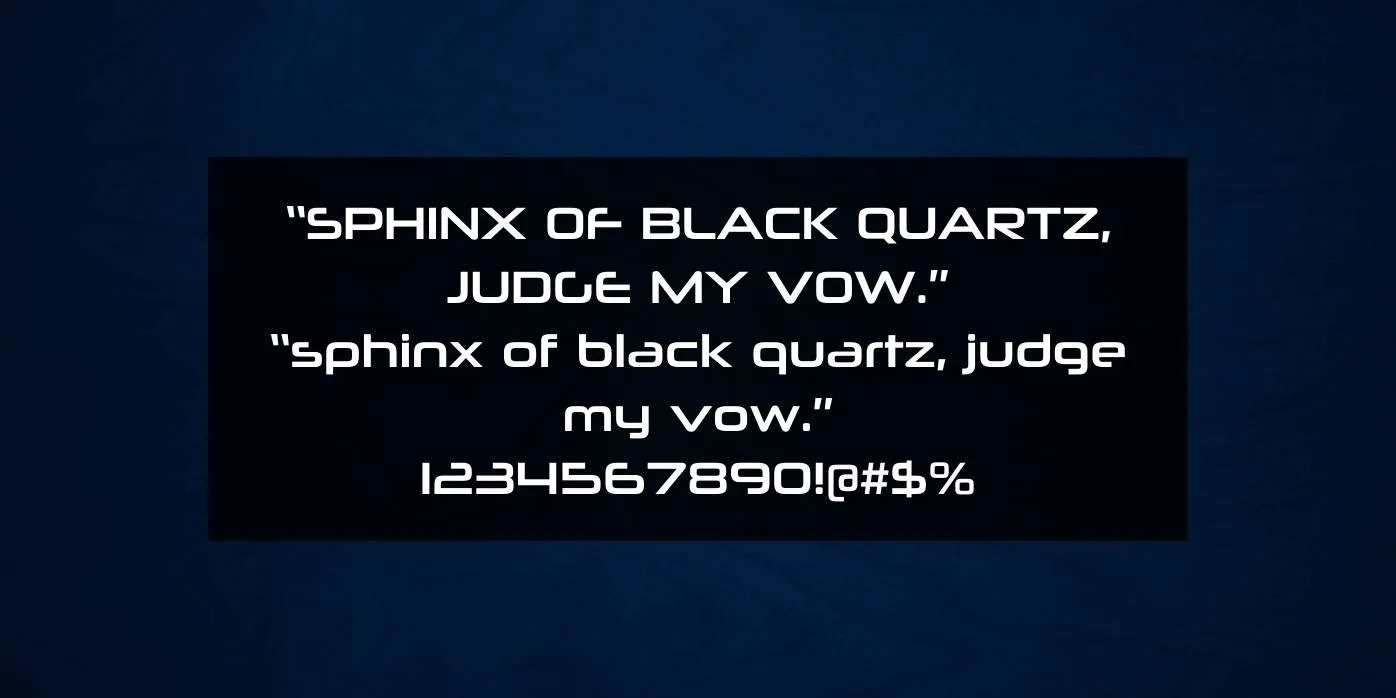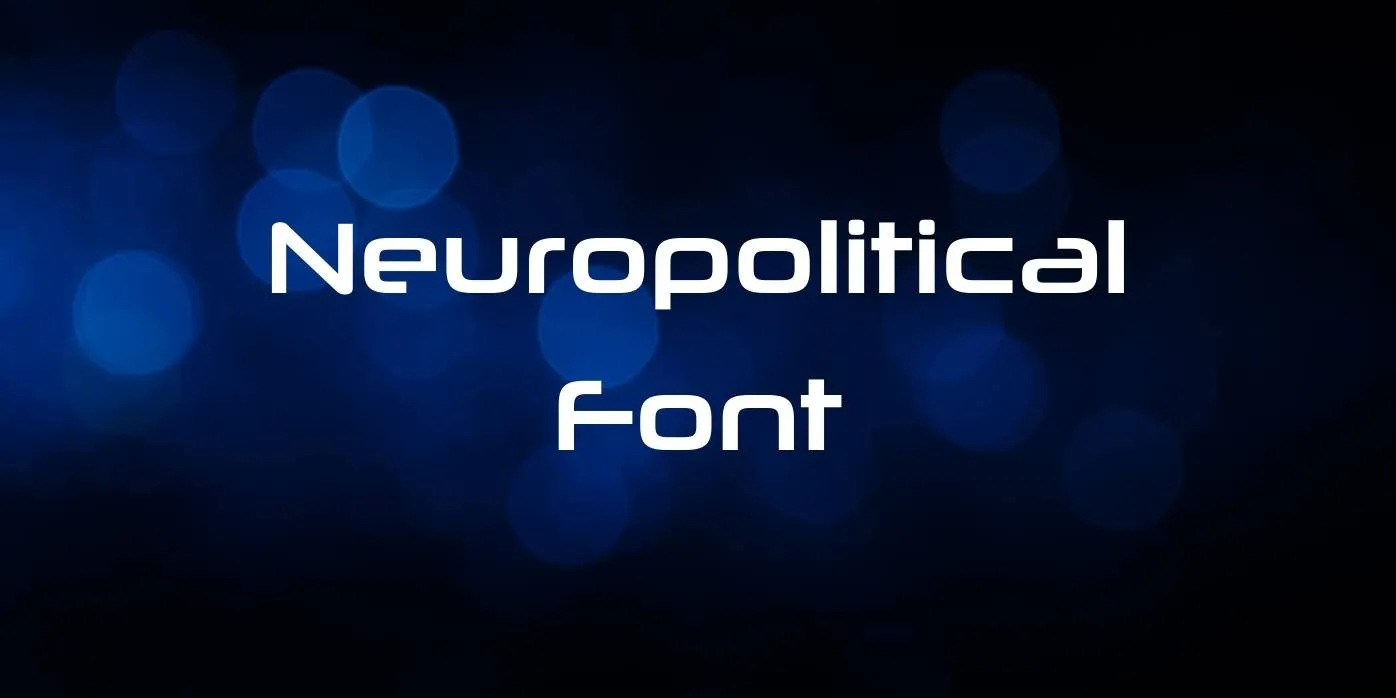
Neuropolitical Font
In this article, we present a stylish typeface known as Neuropolitical Font. This typeface belongs to the techno family. this typeface was designed and shared by Typodermic Fonts Inc. The aim of this typeface is to offer an alternative to traditional and corporate typefaces.
This typeface is perfect for any project that needs a futuristic or tech-inspired look. This typeface is available in both regular and bold weights. It also includes support for multiple languages. You can use sega font which has the same style and characters as this one.
Neuropolitical Typeface includes all the basic Latin character sets as well as accented characters. This family is not included on google You will have to use its generator tool and enjoy its features. If you are looking for a stylish and unique typeface for your next project, then we recommend you check out Neuropolitical Typeface. This typeface is sure to make your project stand out from the rest.